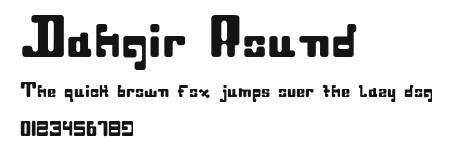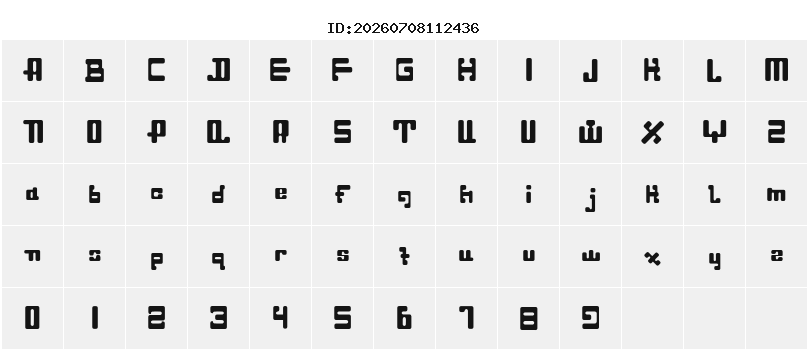
Dahgir Round Preview
About Dahgir Round.otf
Dahgir Round.otf is a modern, elegant sans-serif font designed for ultimate readability and visual harmony. Perfect for branding, headlines, web design, and print materials.